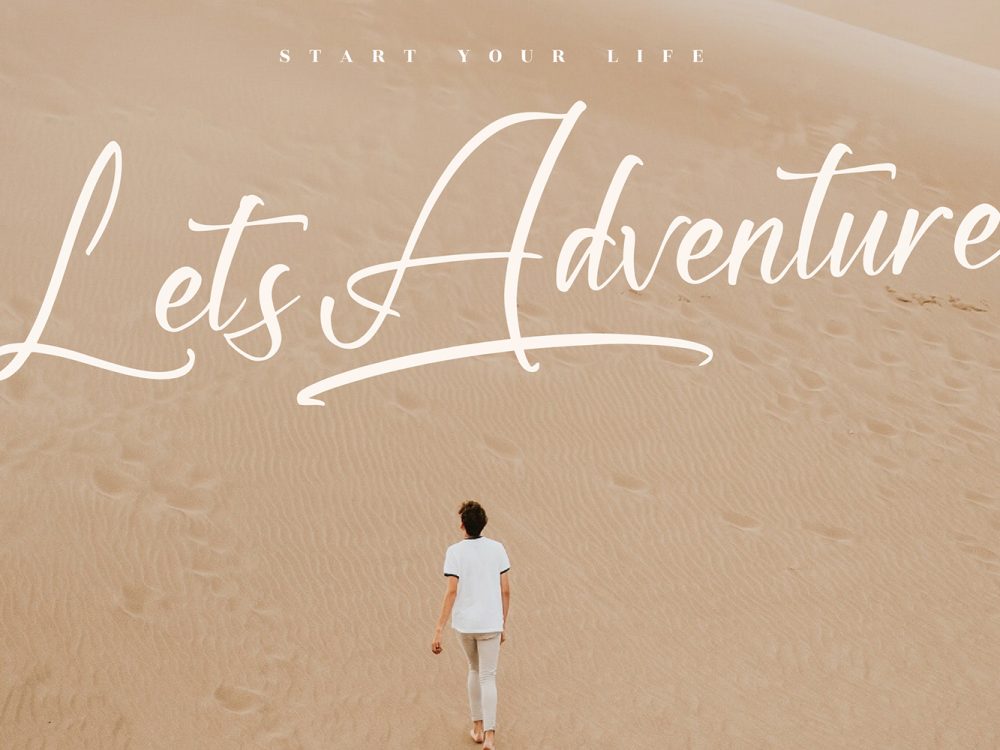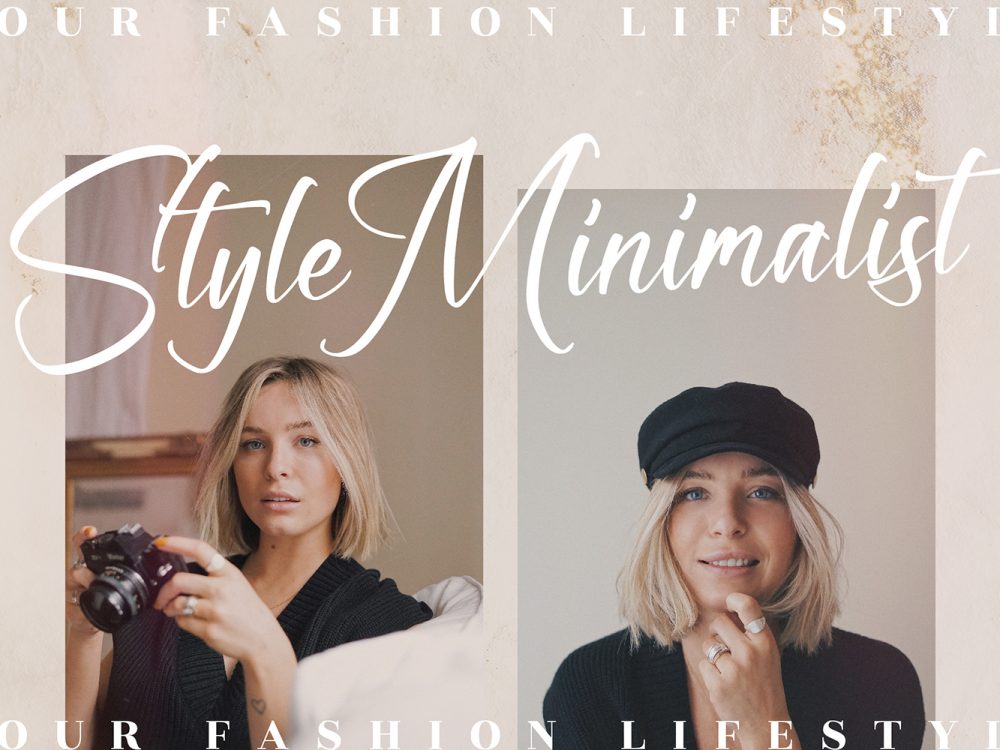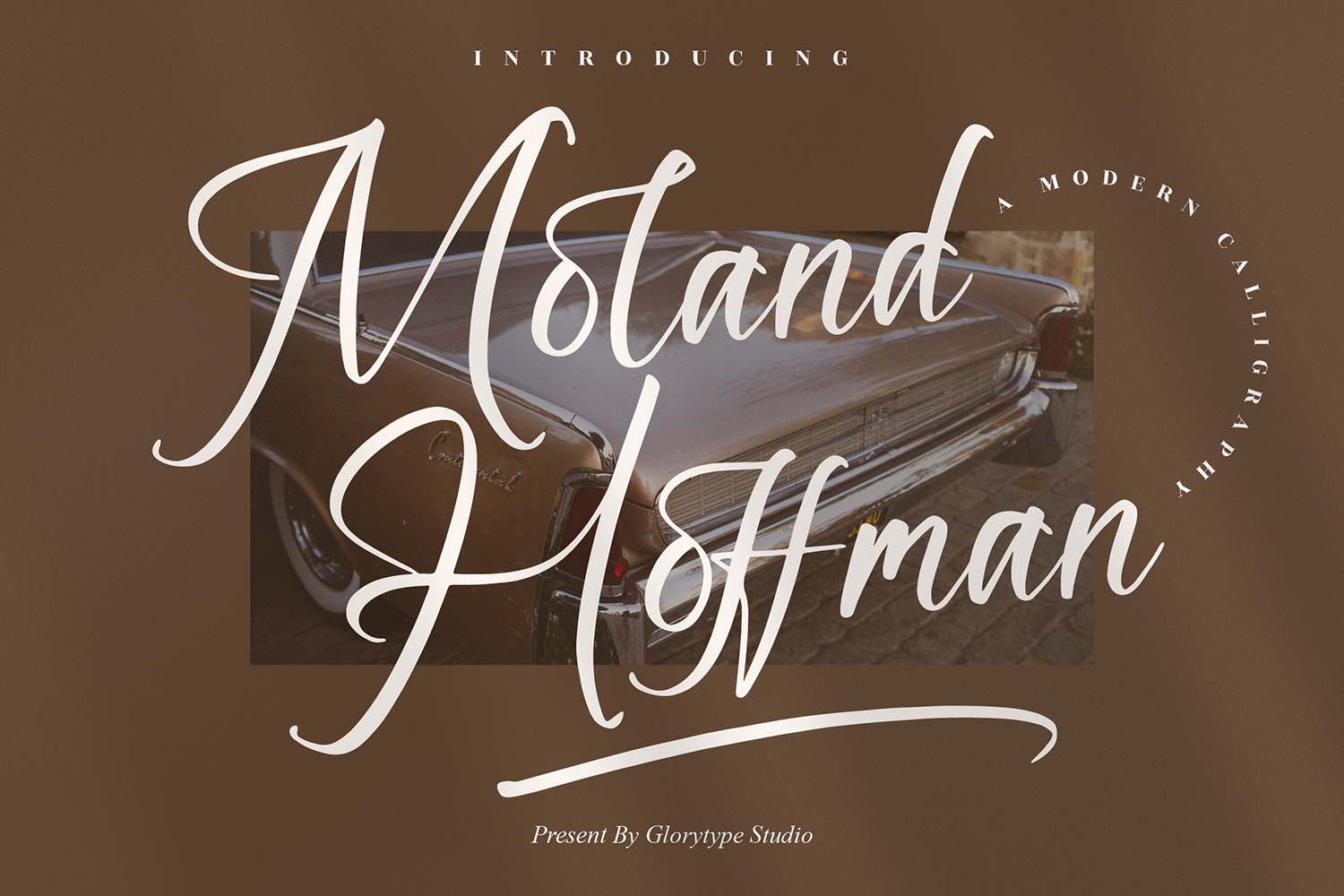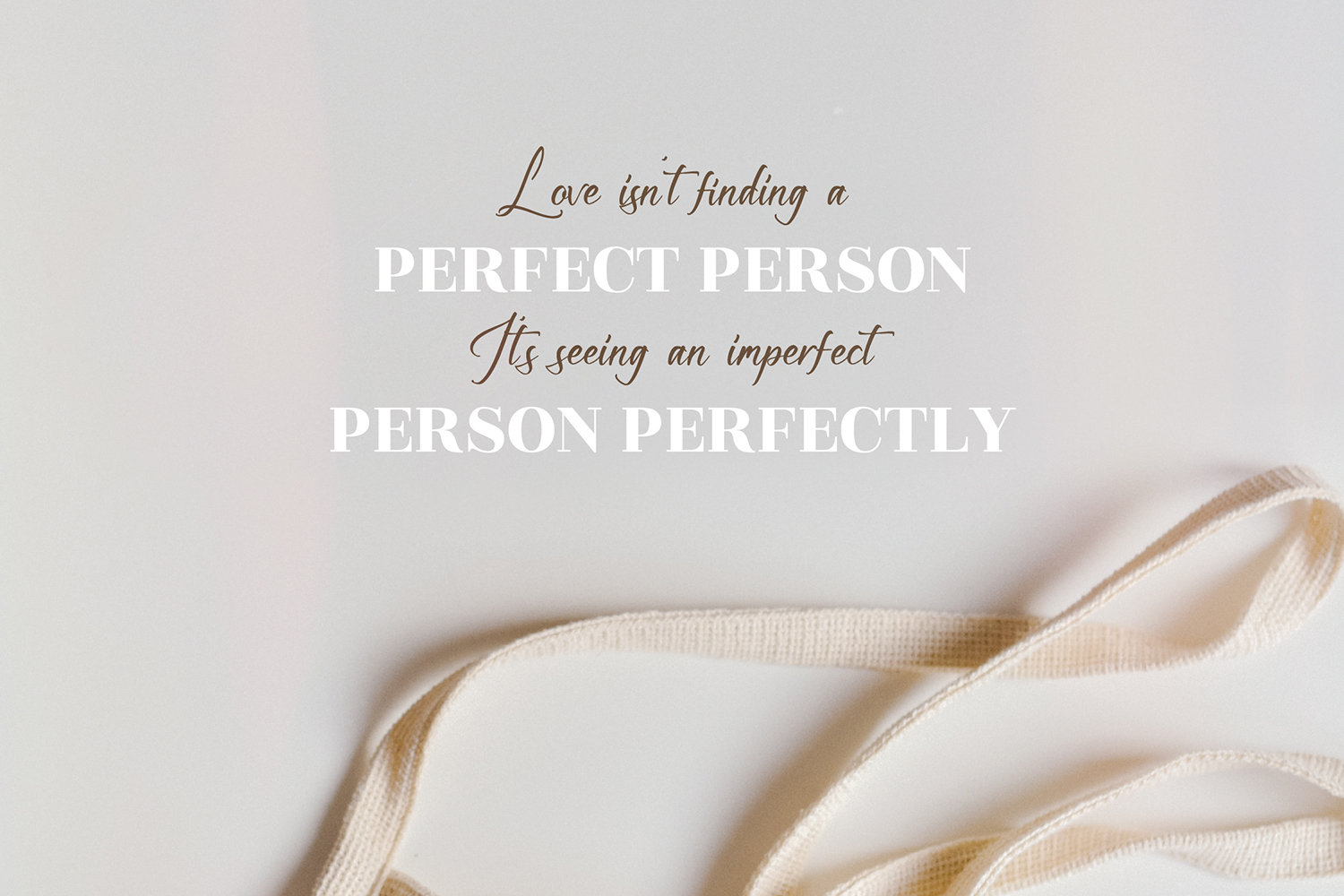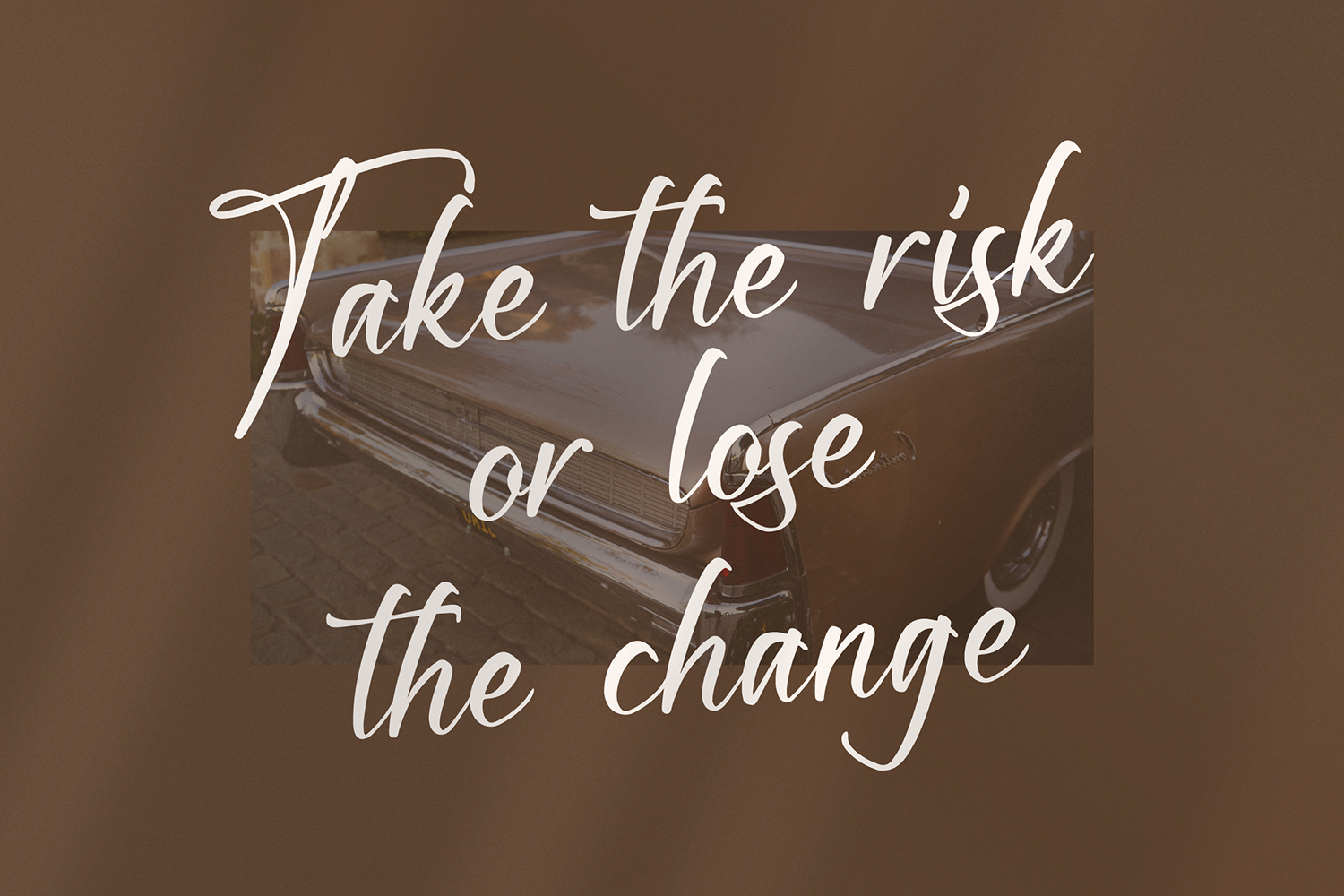
Moland Hoffman Free Font
Moland Hoffman Free Font is a beautiful handwritten font that simulates detailed brush writing and is very suitable for creating various design projects that require a scripted font. These can be posters, invitations, cards, branding, flyer prints, and more. If you wish to access more features and use them for commercial work please buy the full version.